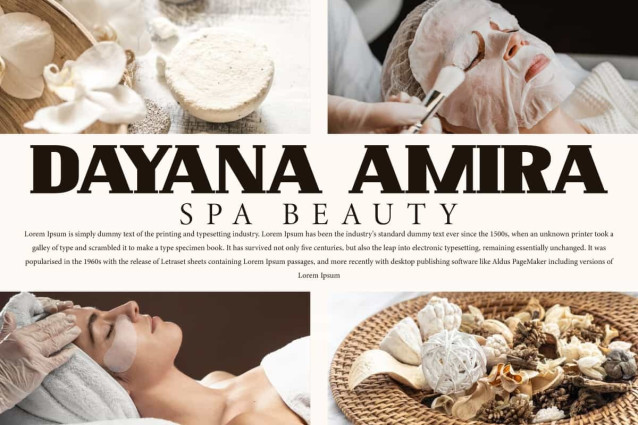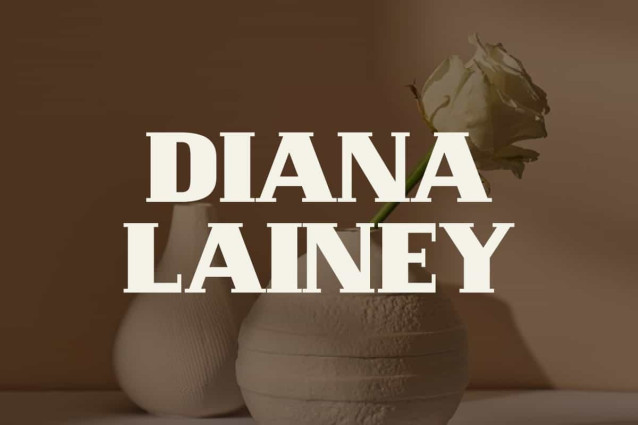
Diana Lainey Font
Diana Lainey Font is a serif display font with sharp, bold and strong characters. This font will be perfect for various projects, such as brand image, headline, invitation, magazine cover, menu, poster, product packaging, signage, social media post, stationery, sticker, website and more!
Diana Lainey Font includes full set of ALL CAPS for Uppercase and Lowercase Basic Characters, Numbers, Punctuation and Symbols. This font gives a classic, authoritative, and influential impression. Making it a perfect choice for a variety of fields, such as advertising, beauty product, cafe, crafts, fashion, photography, restaurant, spa, travel agency, etc.